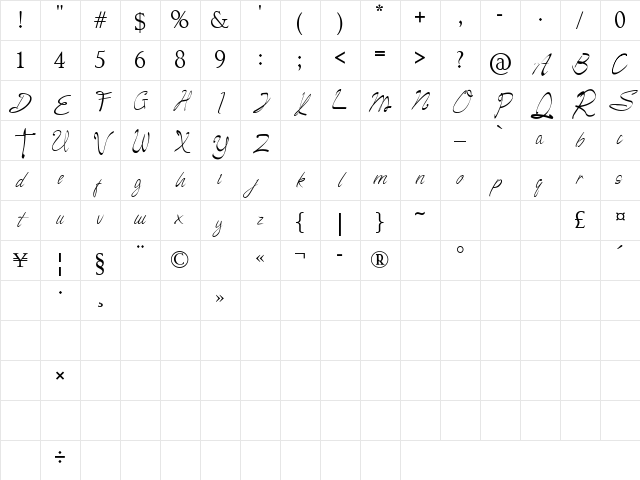
Camella Beauty Script Regular
Designer: Gigih Wiryana
Design Context for Camella Beauty Script
Camella Beauty Script flows with the natural rhythm of handwritten lettering, making it ideal for designs that call for warmth and personal expression.
Font Pairing: Combine Camella Beauty Script with a simple geometric sans for maximum contrast - the tension between flowing curves and clean structure is a classic typographic pairing.
Pro Tip: Use Camella Beauty Script for short runs of text - names, titles, or taglines. Extended body copy in script faces tires the eye quickly.